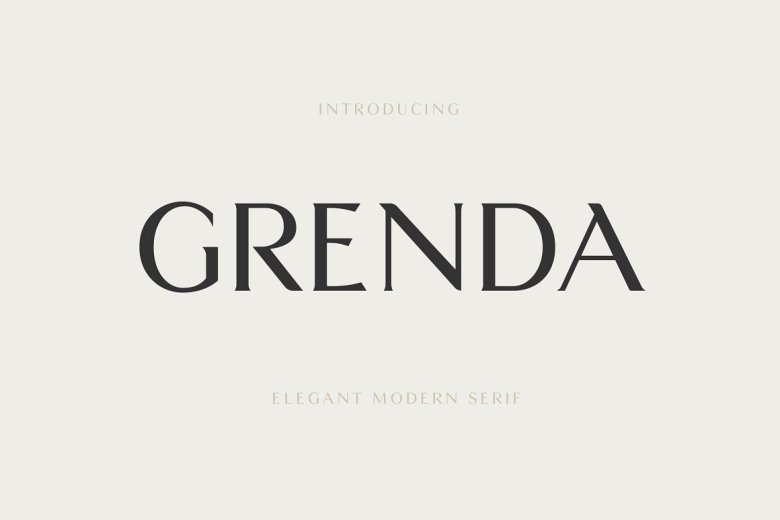
Grenda Font
Grenda is a modern and elegant serif font. This serif font is inspired by Arabic and Europe art. Serifs who are perfect for you a creative worker who wants to make something modern and elegant. Best used for branding, logos, headings, advertising, product packaging, web design, print design, film covers, youtube, & more!
Grenda Serif Font